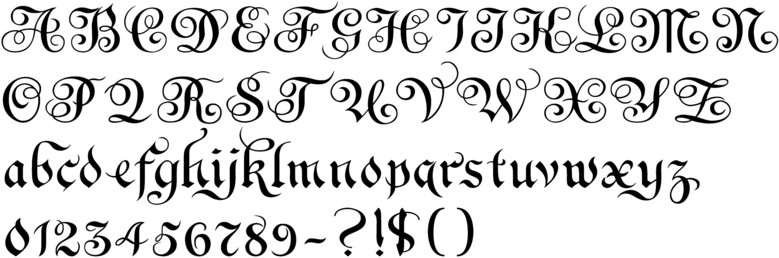
When the steel-tipped writing pen was invented, smoother flow and increased writing speed contributed to the Copperplate style. Roundhand developed as an elaborate version of Copperplate.
England
1900's
Copperplate